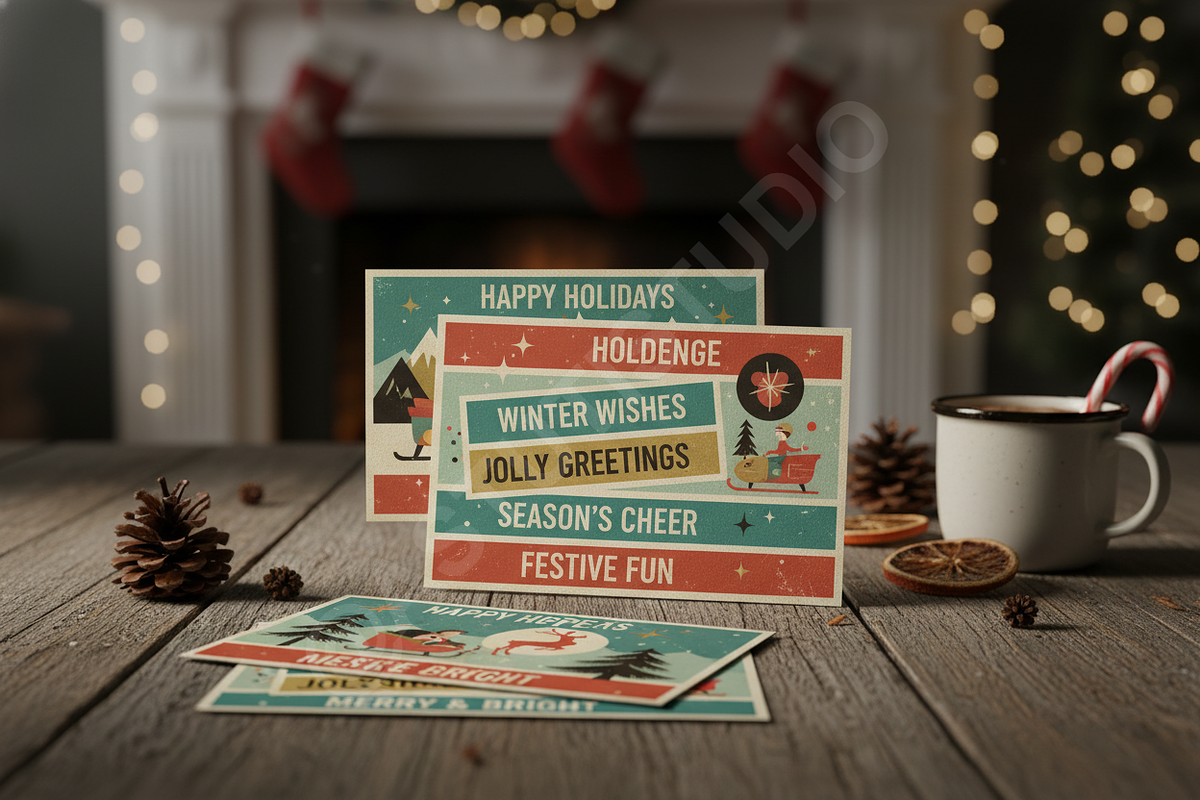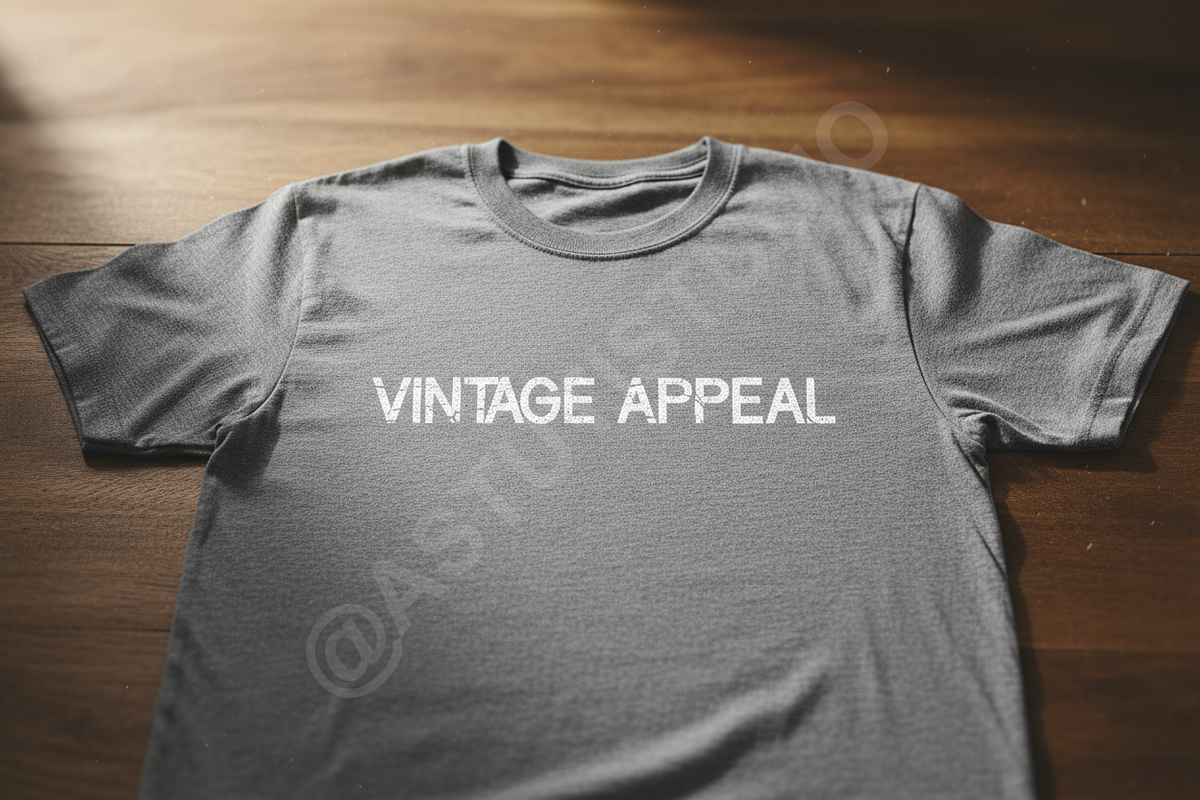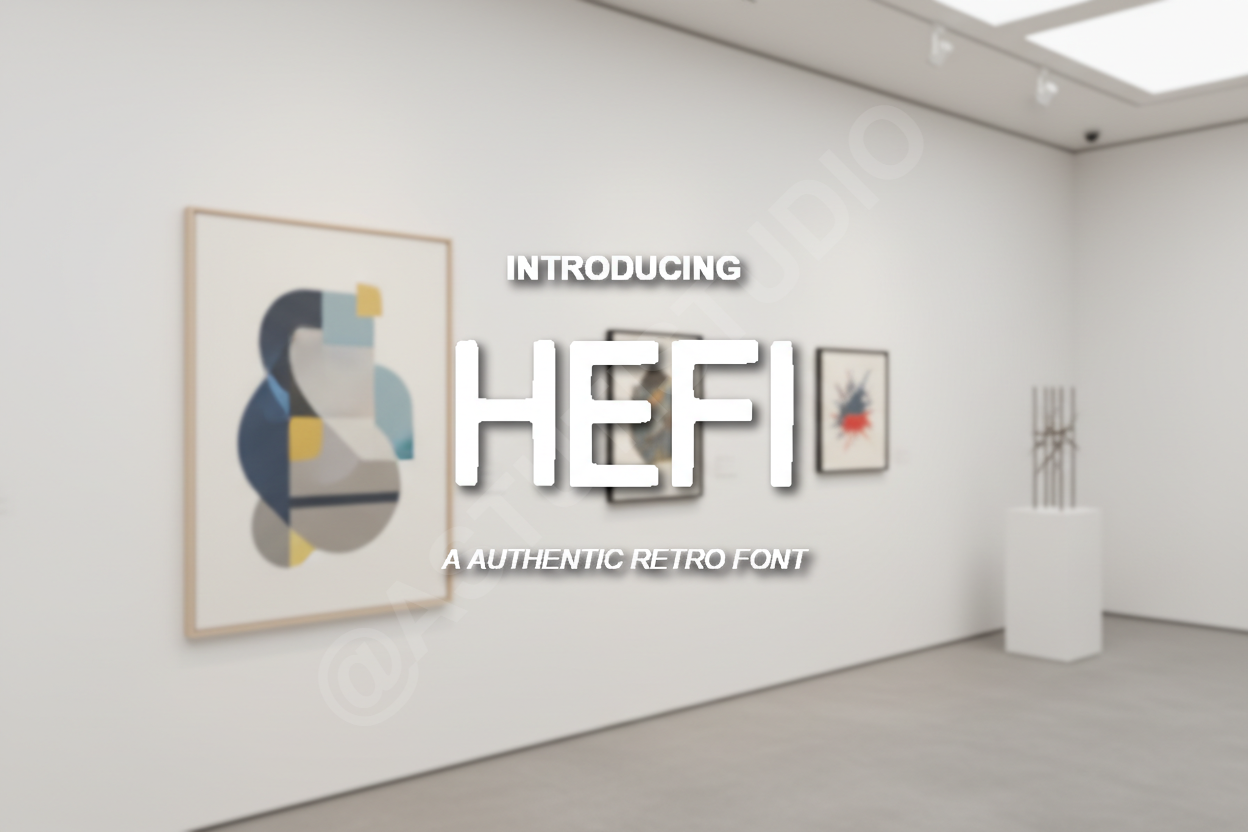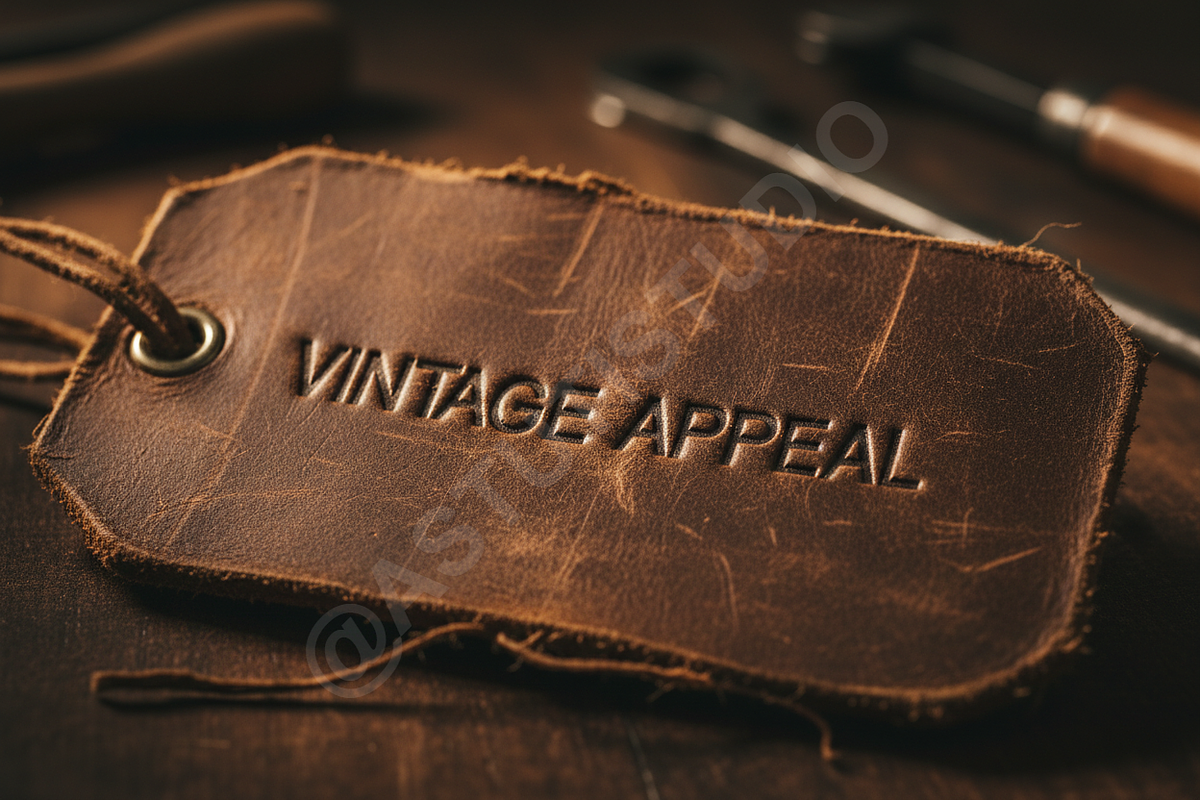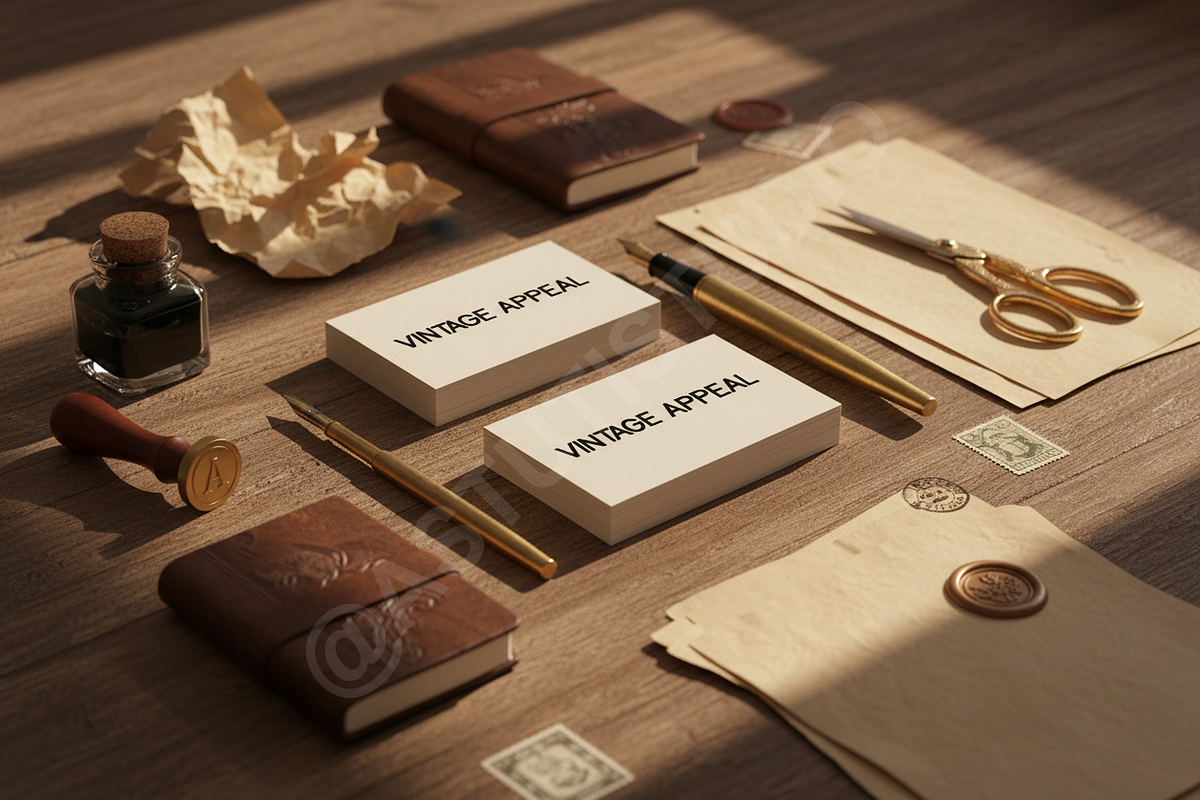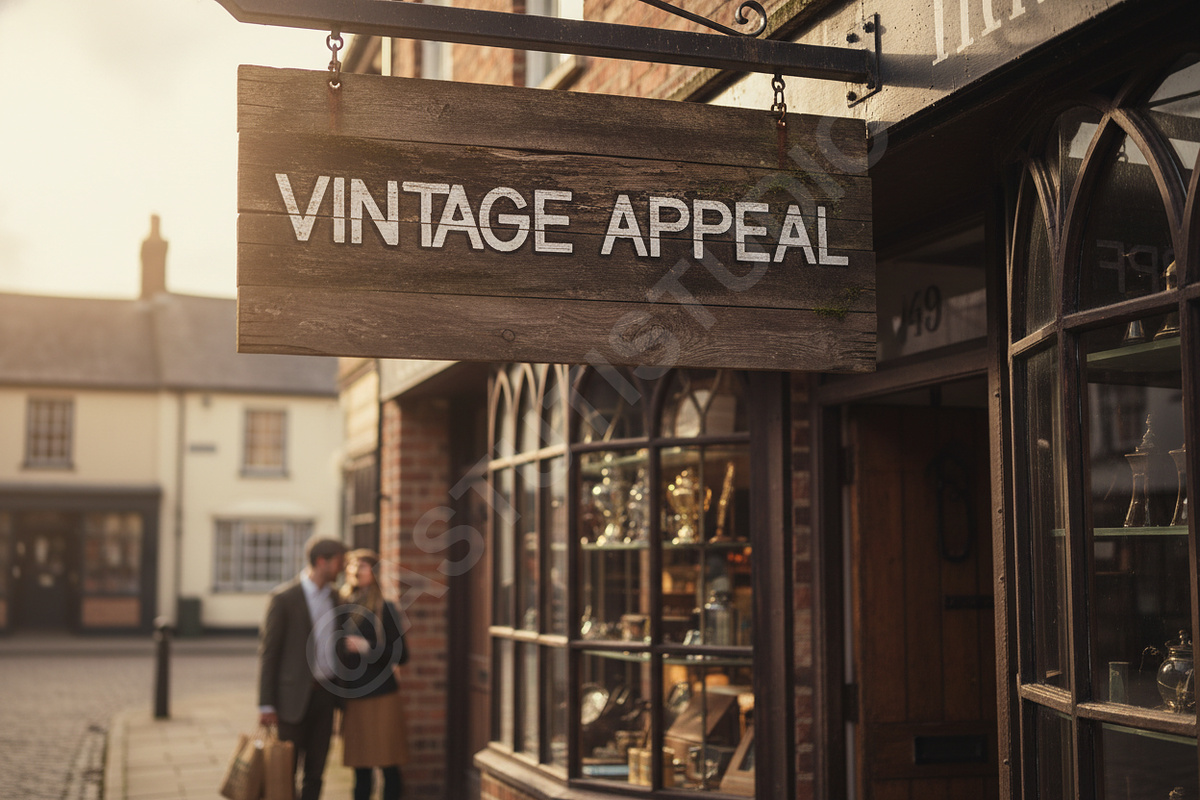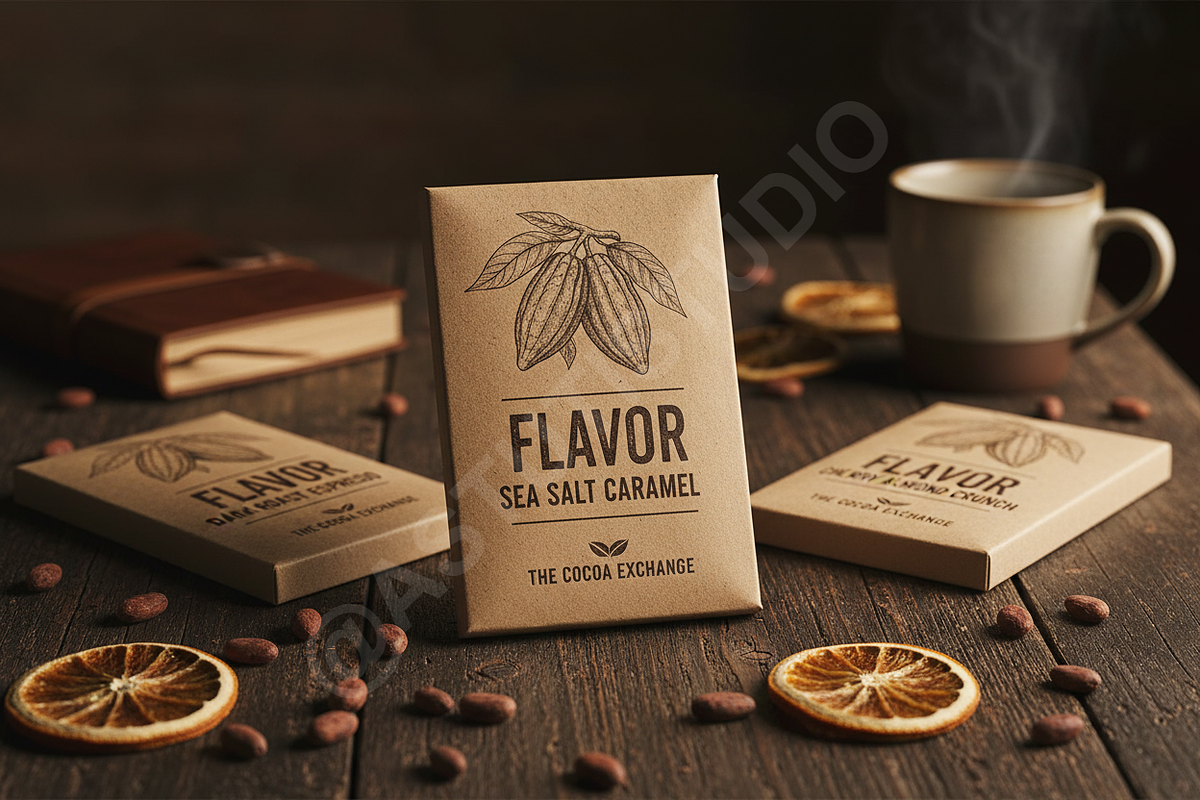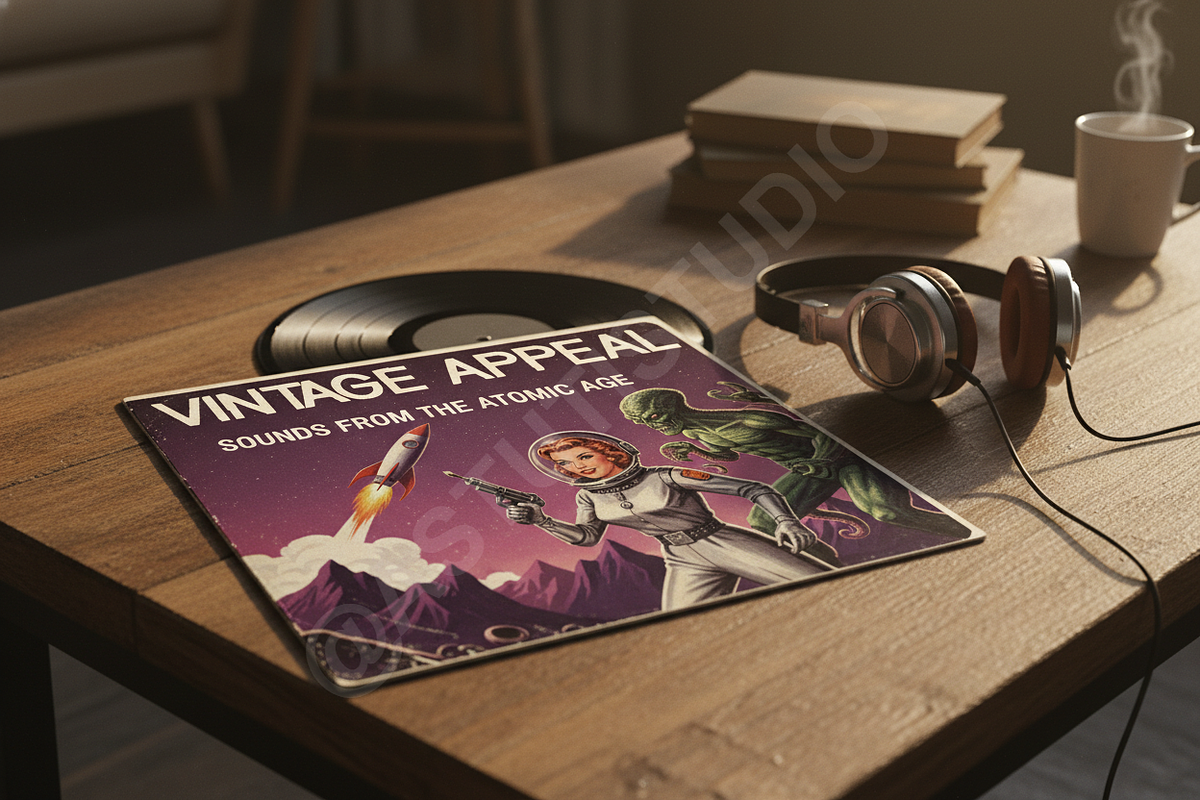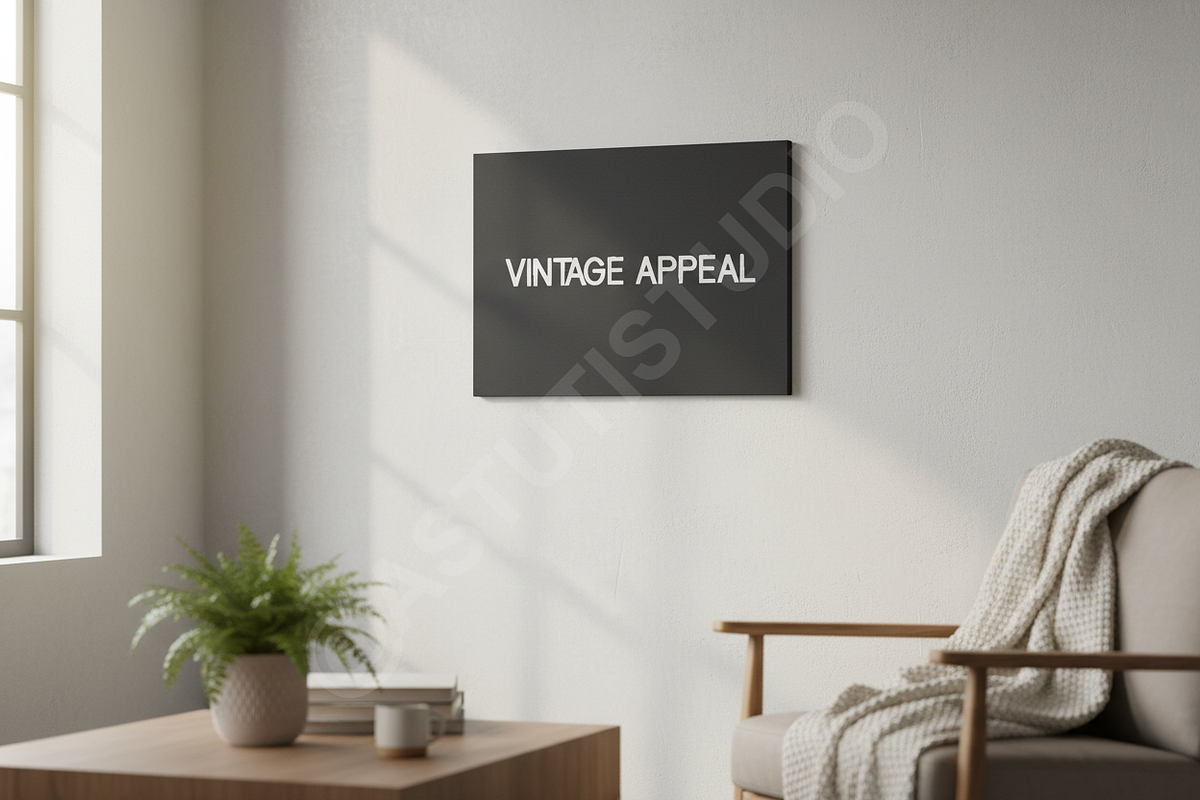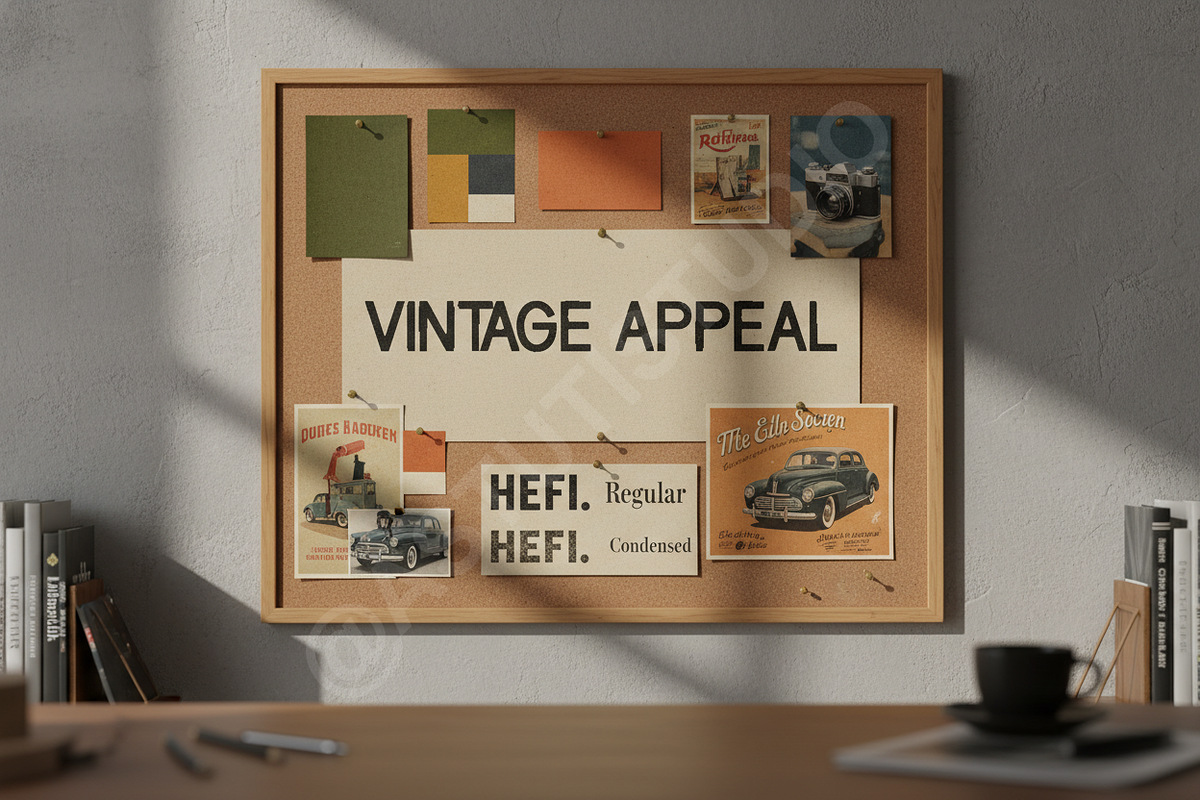
Hefi | Elegant Modern Serif Typeface
INTRODUCTION
Hefi is a sophisticated serif typeface meticulously crafted for high-end design projects. Embodying an aura of timeless elegance, Hefi blends classic structural foundations with sleek, modern terminals. This typeface is an ideal choice for luxury branding, editorial layouts, high-fashion advertisements, and curated social media content.
Whether you are designing a premium brand identity or a minimalist editorial spread, Hefi provides the refined touch necessary to elevate your creative vision and command attention with grace.
- Clean, high-contrast serif letterforms
- Full set of uppercase and lowercase characters
- Extensive ligature collection for unique typography
- Stylistic alternates for creative flexibility
- Comprehensive multilingual support
- Precise kerning and professional spacing